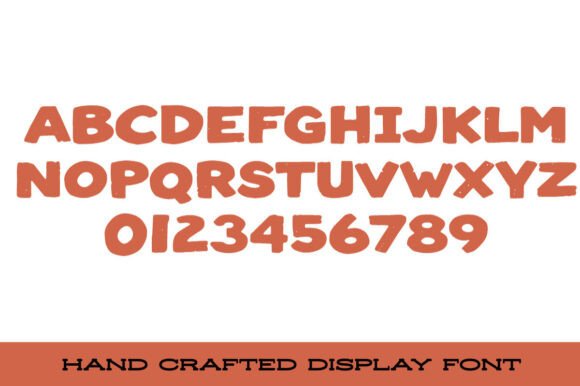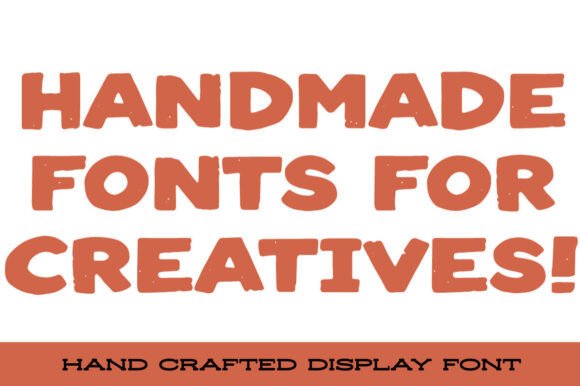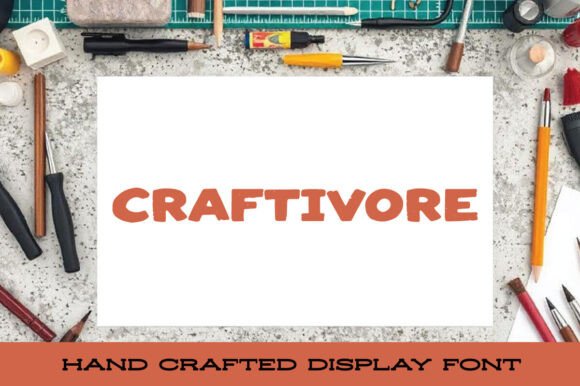
Craftivore Font: The Perfect Companion for Makers and DIY Enthusiasts
In a world where digital creations dominate, there’s something undeniably charming about handmade crafts. The texture of paper, the feel of glue, and the sight of paint-stained fingers all evoke a sense of warmth and personality that digital creations often lack. For designers and crafters who want to capture this essence in their work, the Craftivore font is a game-changer. This bold, hand-crafted font is specifically designed for makers, DIY enthusiasts, and creative souls who love to craft their hearts out.
The Inspiration Behind Craftivore
Craftivore is more than just a font – it’s a celebration of the do-it-yourself lifestyle. Its chunky, textured letterforms are reminiscent of handmade creations, with all the imperfections and quirks that make them so charming. The font’s design is inspired by the tools of the crafting trade: glue guns, scissors, paint-stained fingers, and endless rolls of washi tape. It’s a font that says, “I made this with my own two hands,” and that’s something to be proud of.
Perfect for Crafting Projects
Whether you’re designing labels for homemade candles, signage for craft fairs, or personalized gifts, Craftivore adds a playful yet polished touch to every project. Its bold, chunky letterforms are easy to read, even at small sizes, making it perfect for labels, tags, and other small design elements. And with its textured, hand-crafted feel, Craftivore adds a level of personality to your designs that’s hard to replicate with more traditional fonts.
Celebrating the DIY Lifestyle
Craftivore is more than just a font – it’s a way of life. It’s a reminder that crafting is not just a hobby, but a way of expressing yourself and bringing your ideas to life. In an age where mass-produced goods dominate, crafting is a way to stand out, to be unique, and to create something that’s truly yours. And with Craftivore, you can bring that same sense of personality and charm to your designs.
What Makes Craftivore Special?
- Hand-crafted feel: Craftivore’s textured, hand-crafted letterforms give it a unique, one-of-a-kind feel that’s perfect for handmade crafts and DIY projects.
- Bold and chunky: Craftivore’s bold, chunky letterforms are easy to read, even at small sizes, making it perfect for labels, tags, and other small design elements.
- Playful yet polished: Craftivore adds a playful yet polished touch to every project, making it perfect for designers and crafters who want to add a level of personality to their work.
- Perfect for crafting projects: Whether you’re designing labels for homemade candles, signage for craft fairs, or personalized gifts, Craftivore is the perfect font for your crafting projects.
Tips for Using Craftivore
Here are a few tips for getting the most out of Craftivore:
- Use it for headlines: Craftivore’s bold, chunky letterforms make it perfect for headlines and titles.
- Pair it with a simple font: For body text, pair Craftivore with a simple, easy-to-read font to create a striking contrast.
- Experiment with colors and textures: Craftivore’s textured, hand-crafted feel lends itself perfectly to experimentation with colors and textures.
In conclusion, Craftivore is a font that’s all about celebrating the DIY lifestyle. Its bold, hand-crafted letterforms make it perfect for makers, DIY enthusiasts, and creative souls who love to craft their hearts out. Whether you’re designing labels for homemade candles, signage for craft fairs, or personalized gifts, Craftivore adds a playful yet polished touch to every project. So why not give it a try and see how it can bring a level of personality and charm to your designs?